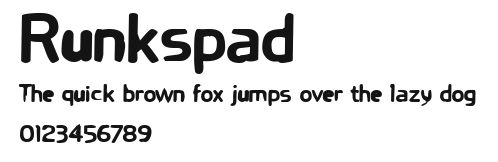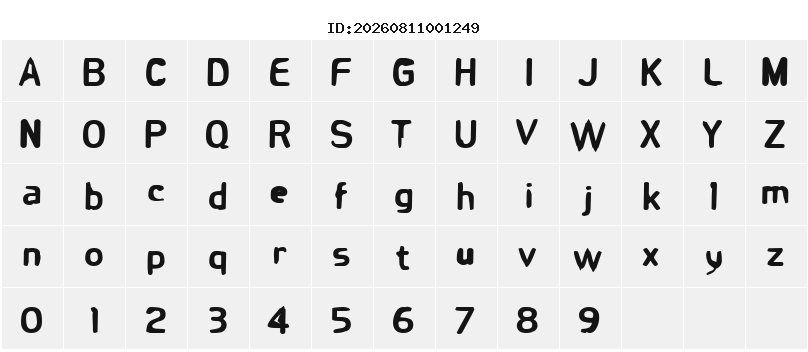
• Font Name: Runkspad
• Full Font Name: Runkspad
About Runkspad.ttf
Runkspad.ttf is a modern, elegant sans-serif font designed for ultimate readability and visual harmony. Perfect for branding, headlines, web design, and print materials.